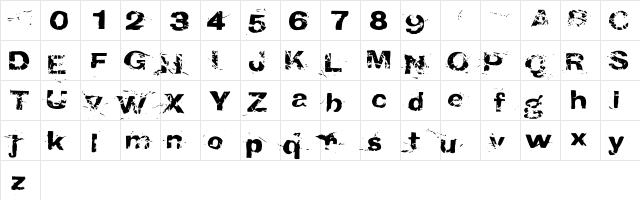
CrunchyFaxPhont Regular
Design Context for CrunchyFaxPhont Typeface
CrunchyFaxPhont is a composed and adaptable typeface that performs quietly and consistently across a wide range of design contexts.